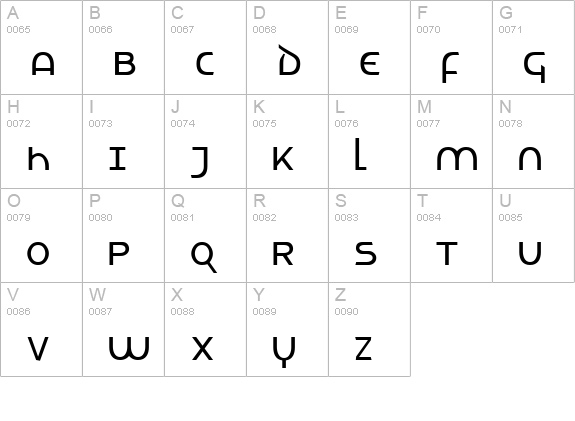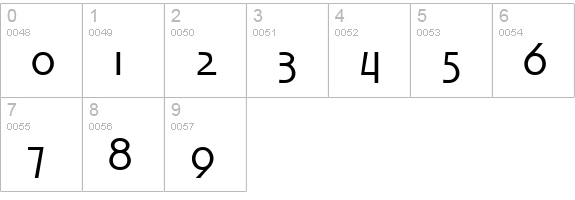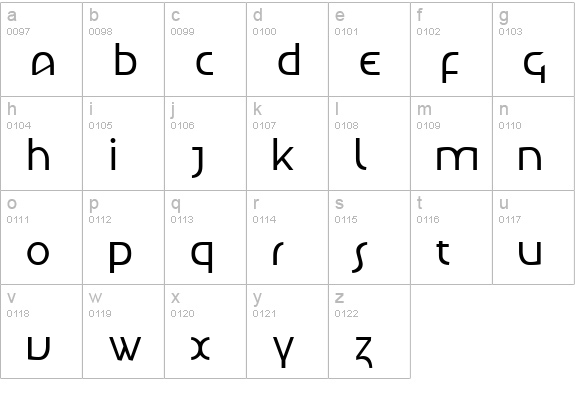
Letunical Normal Font Details
Letunical Normal is the standard, neutral variant in the Letunical typeface family \xE2\x80\x94 well suited to general body text, paragraphs, and standard typographic work.
Letunical Normal is a stunning font that effortlessly blends elegance and modernity. Its clean lines and refined curves make it perfect for a wide range of design projects, from logos and branding to invitations and packaging. This versatile typeface exudes a sense of sophistication and professionalism, while still maintaining a contemporary edge. The Letunical Normal font offers a harmonious balance between legibility and creativity, making it suitable for both display and body text. Its well-crafted letterforms ensure excellent readability, even at smaller sizes, making it ideal for websites, magazines, and printed materials. This font's versatility extends to its extensive character set, which includes uppercase and lowercase letters, numerals, punctuation marks, and a variety of special characters. With Letunical Normal, you have the freedom to express yourself and bring your design visions to life. One of the most remarkable aspects of Letunical Normal is that it is freely available to download at FontsMarket.com. This means that you can easily access this exceptional font without any cost, making it a valuable resource for both professional designers and enthusiasts alike. Whether you're a seasoned designer looking to add a touch of elegance to your work or a novice exploring the world of typography, Letunical Normal is the perfect font to enhance your creative projects. Download Letunical Normal today from FontsMarket.com and experience the seamless blend of style, versatility, and accessibility that this font has to offer. Elevate your designs with the sophisticated charm of Letunical Normal and captivate your audience with its timeless appeal.